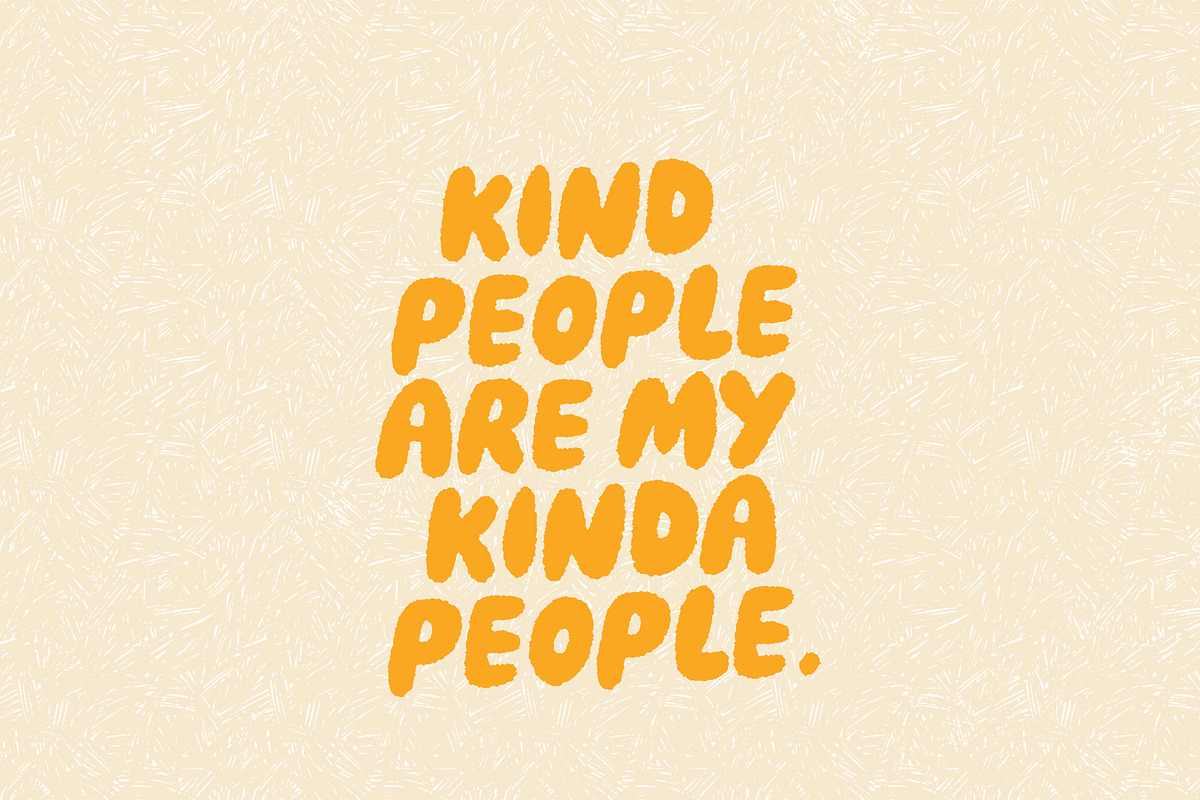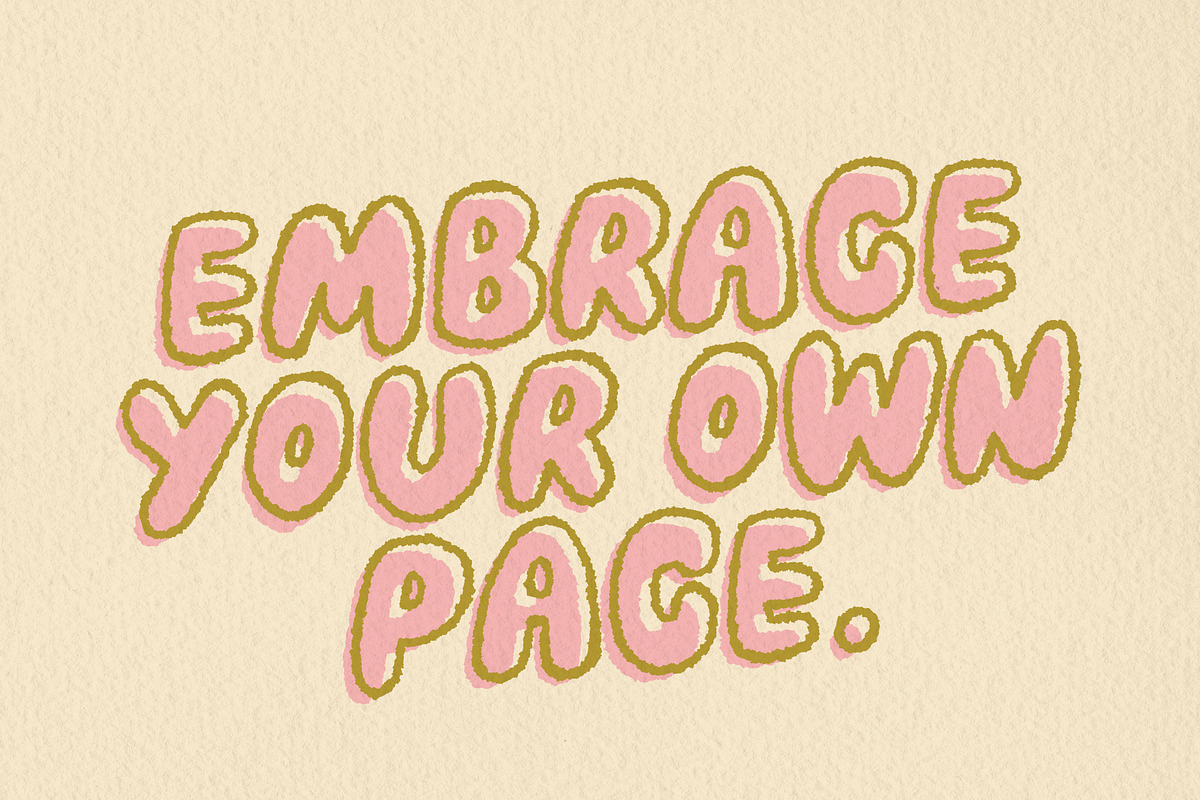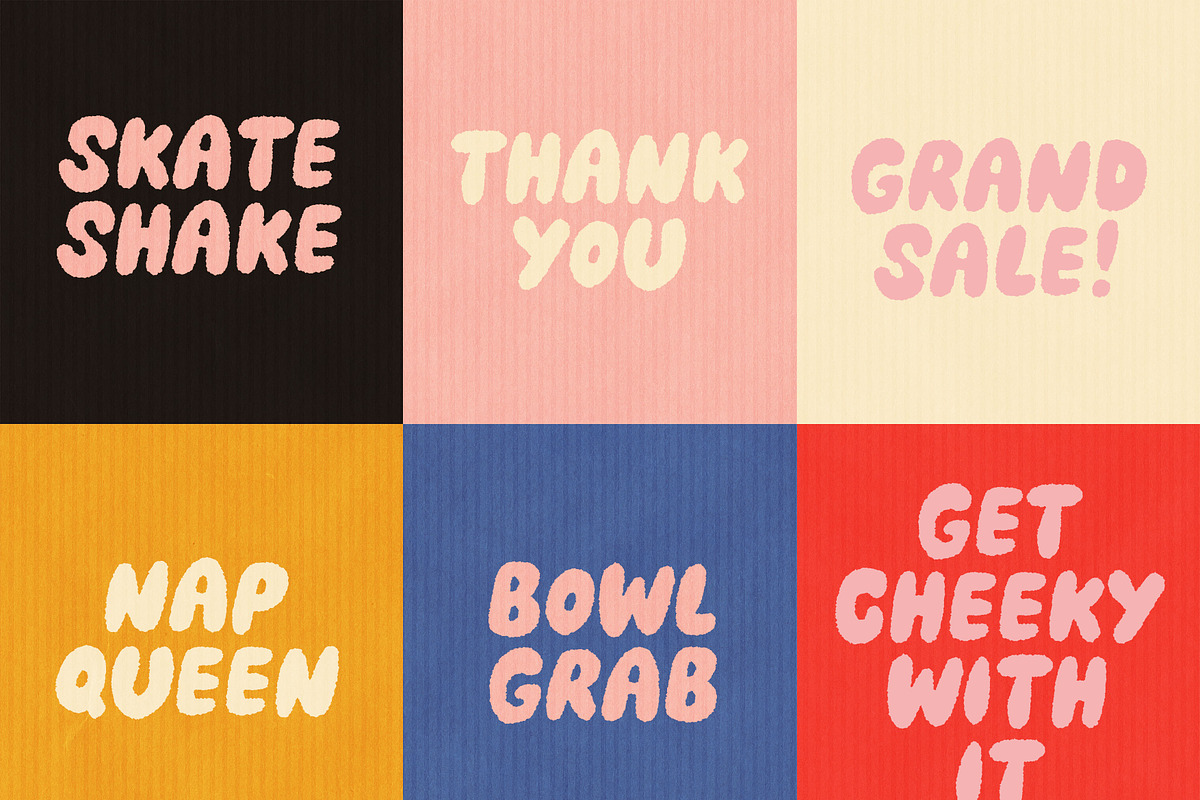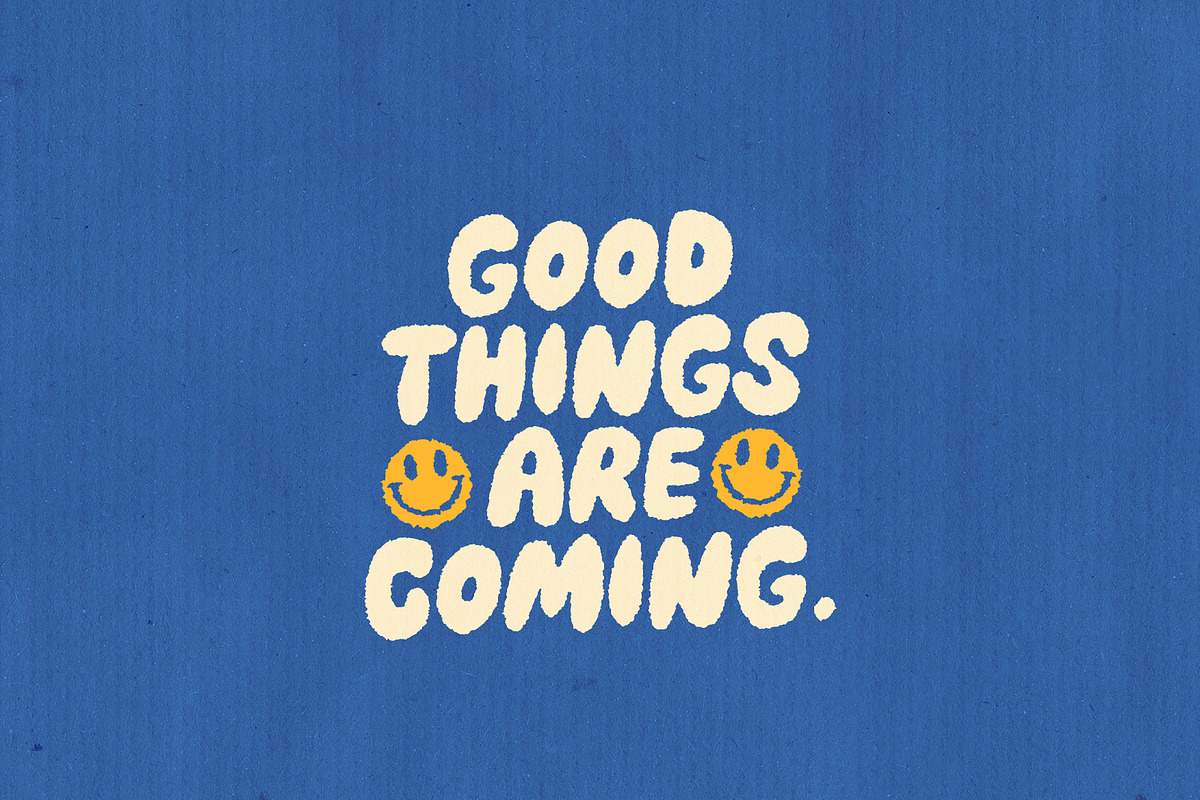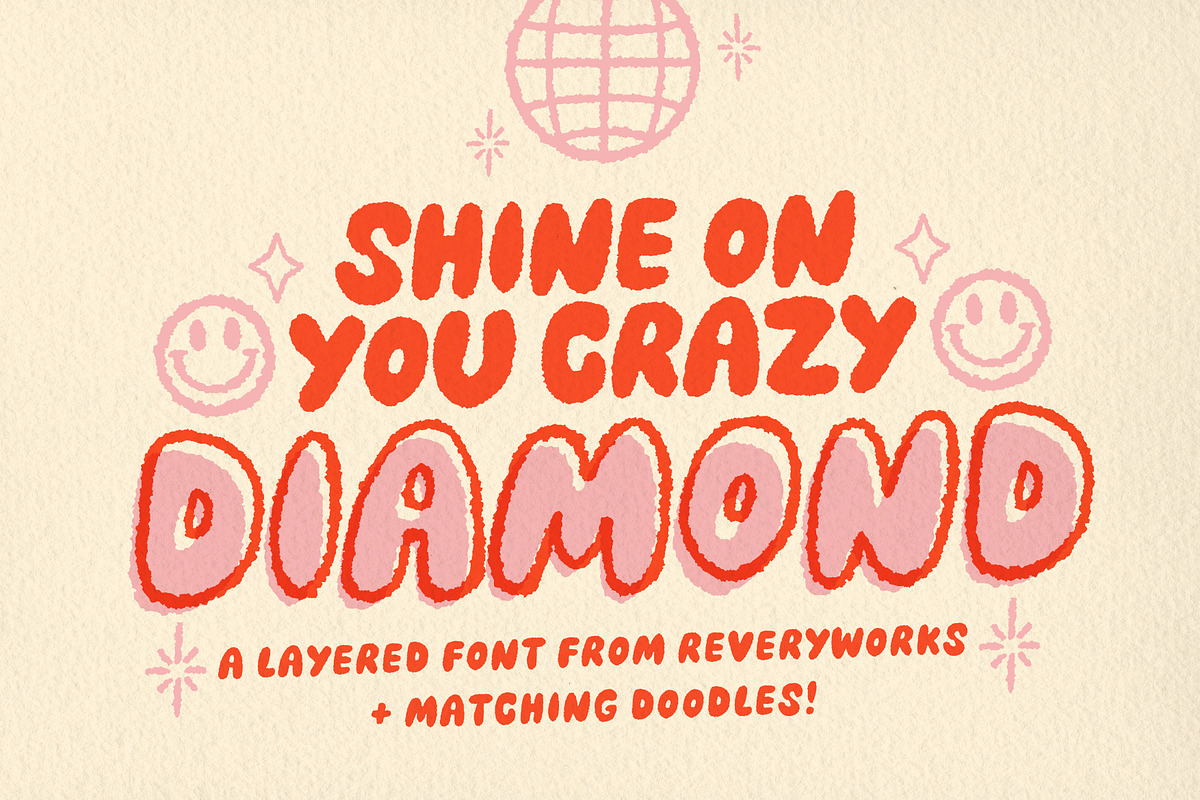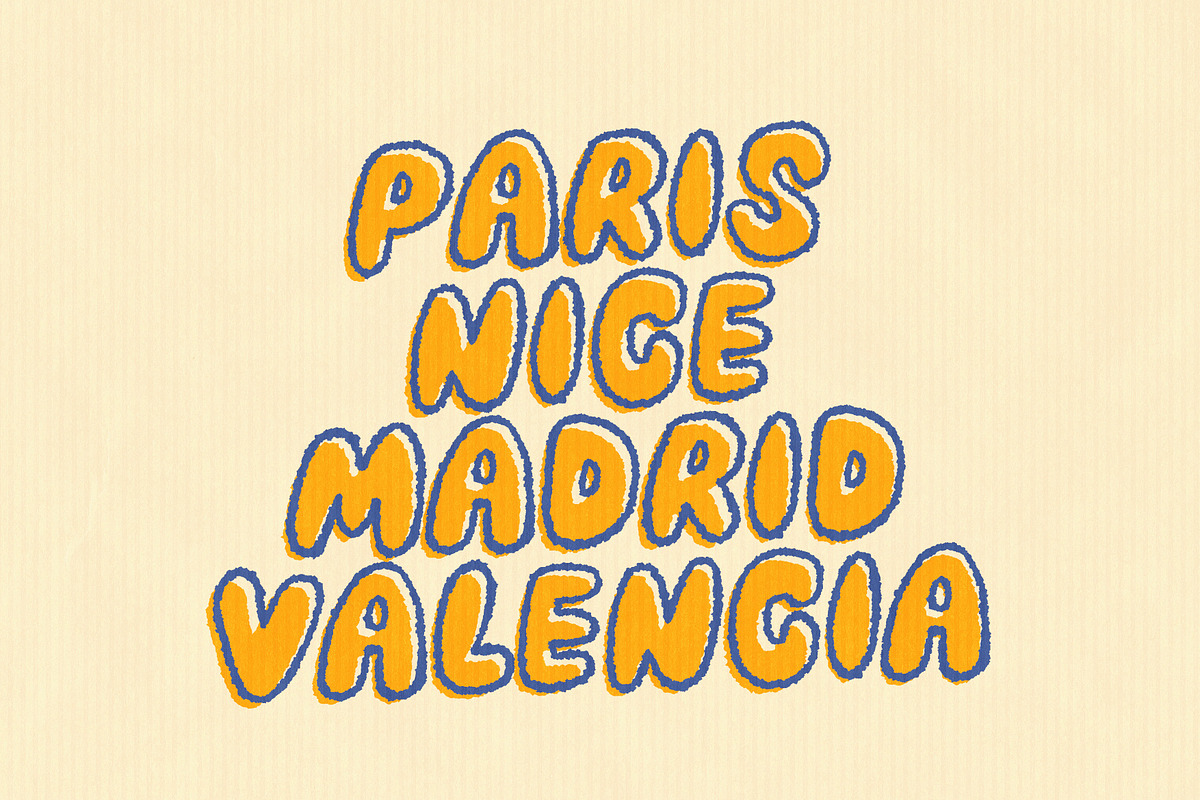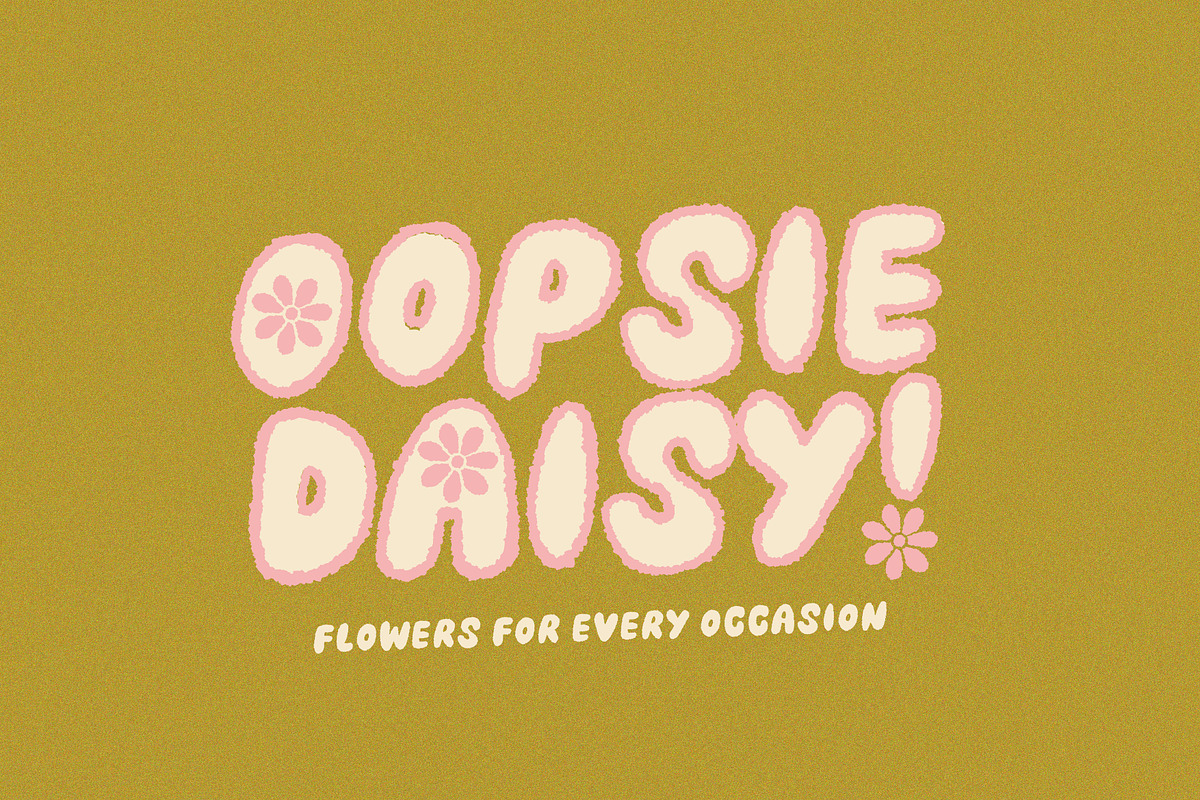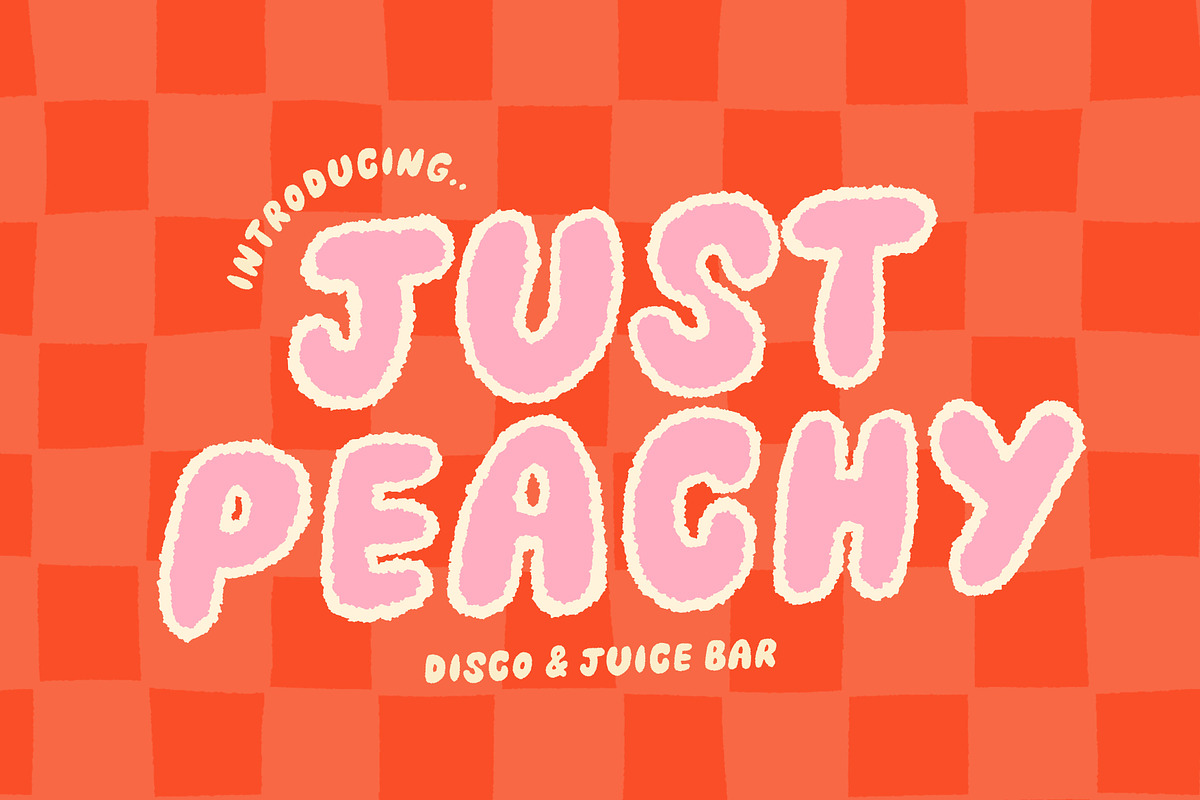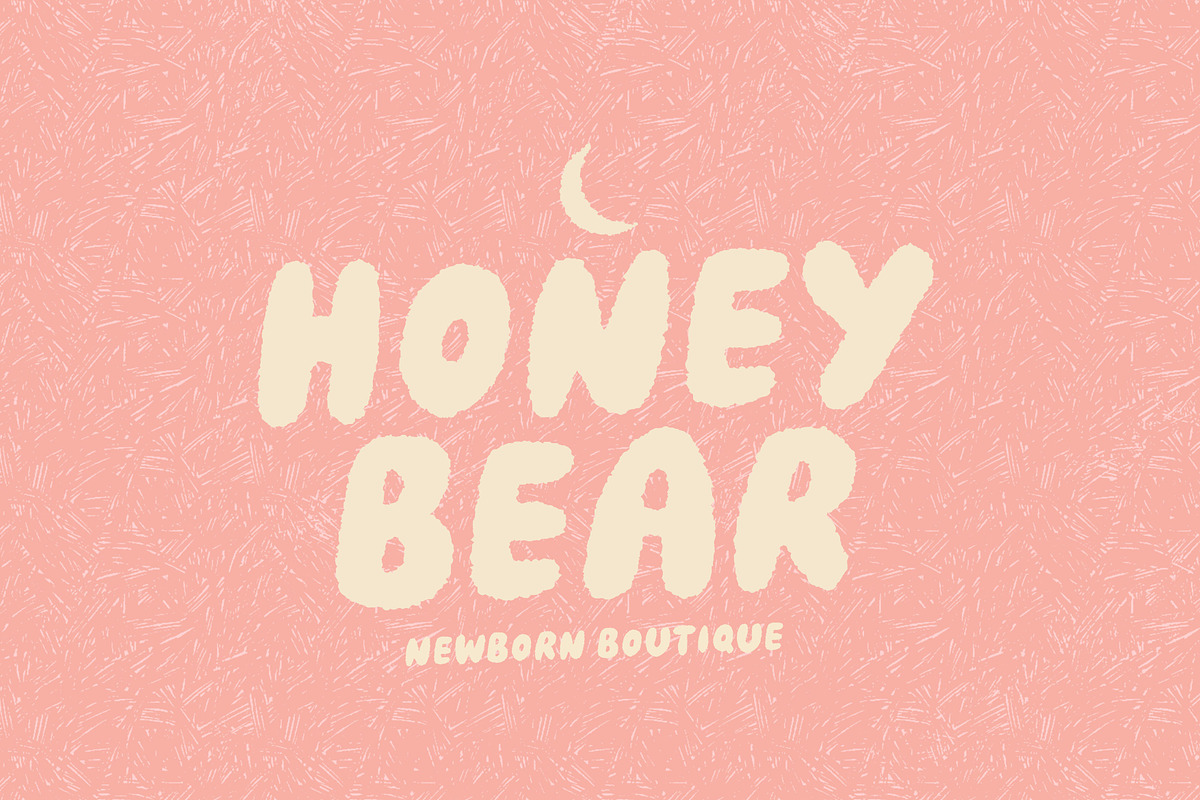
Crazy Diamond Fonts + Doodles
Shine on your Crazy Diamond! – Here is to hoping every time you use this font you are fearlessly bold! It’s voluptuous with fun texture on the edges. Includes two fonts and a matching set of groovy illustrations. Have fun experimenting with all the ways you can use it! (scrawl through all the previews for inspiration)
This font includes Multi-lingual support. The following characters are included á â à ä å ã æ ç é ê è ë í î ì ï ı ñ ó ô ò ö õ ø œ š ß ú û ù ü ý ÿ ž À Ä Å Ã Æ Ç É Ê È Ë Í Î Ì Ï Ñ Ó Ô Ò Ö Õ Ø Œ Š Û Ù Ü Ý Ÿ